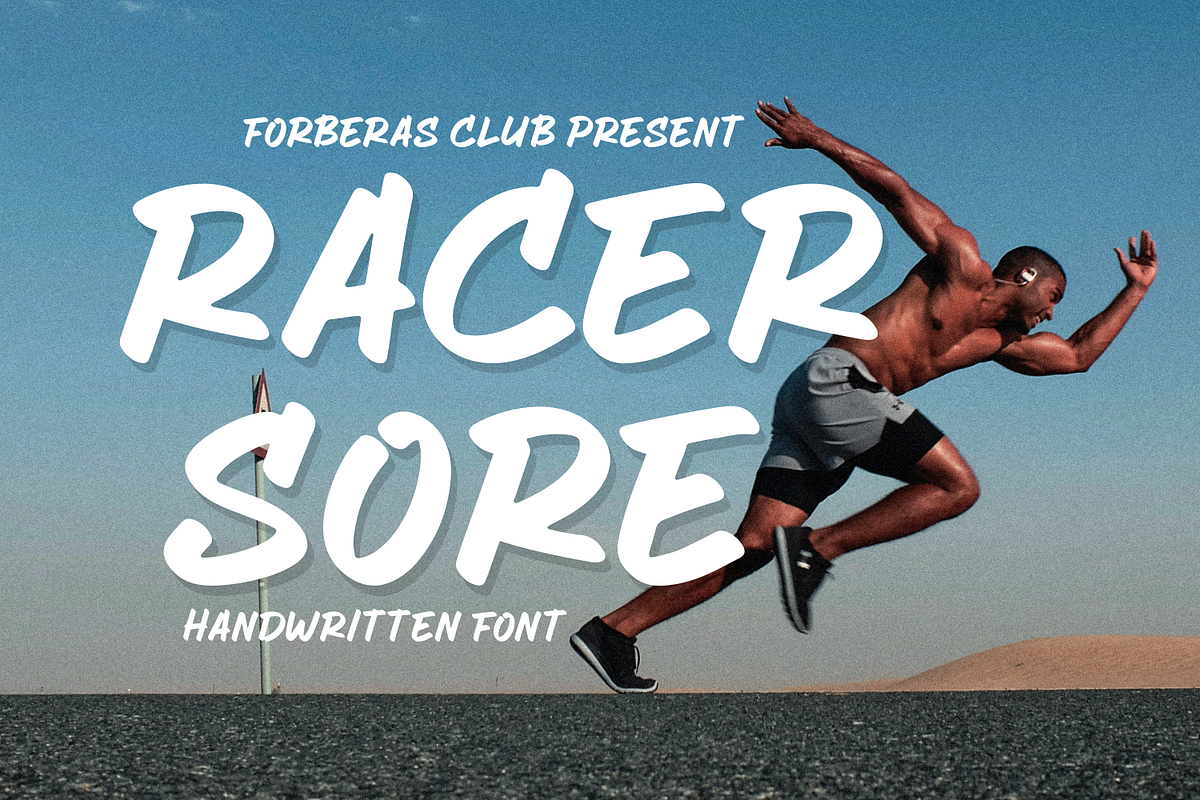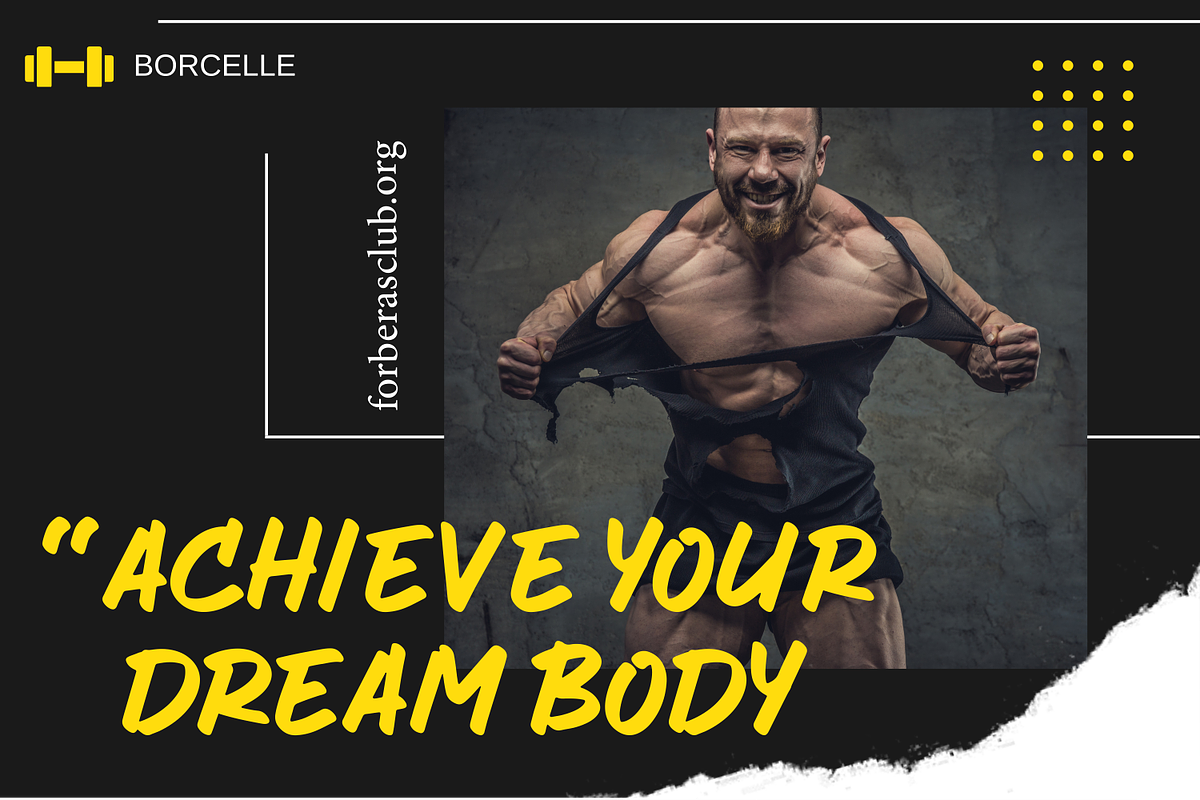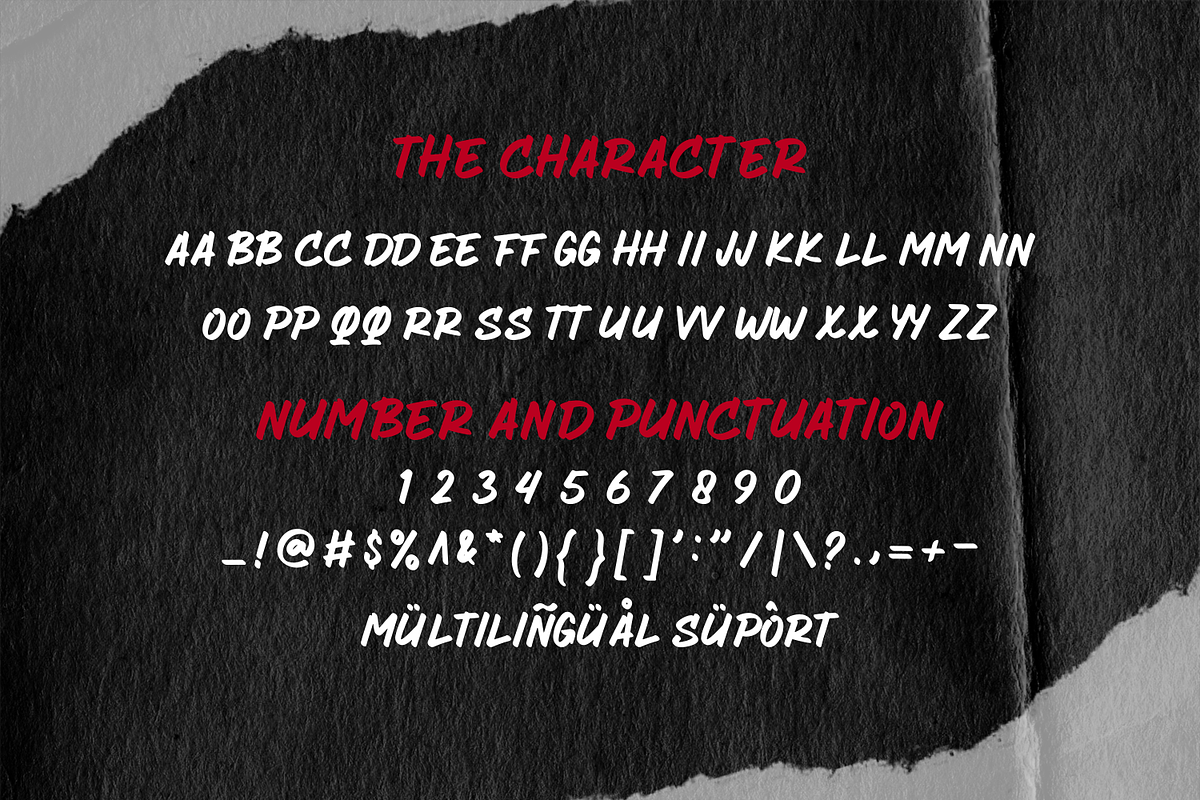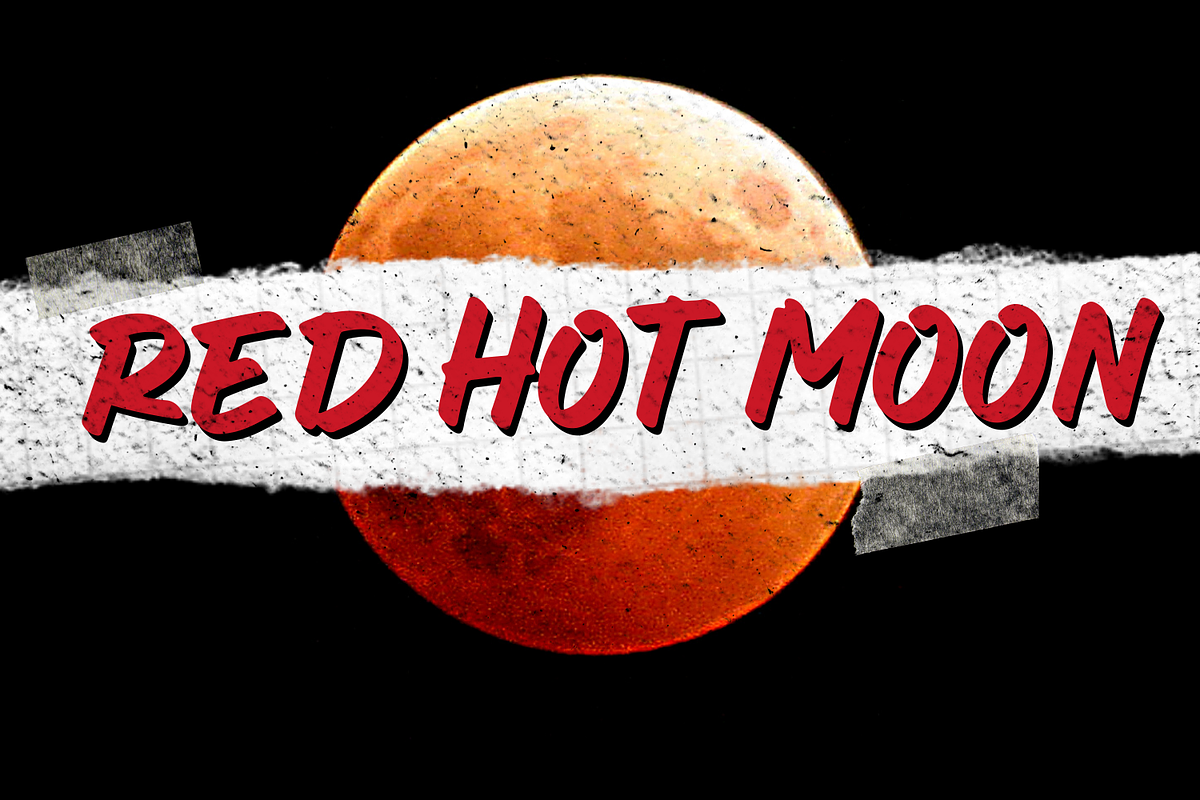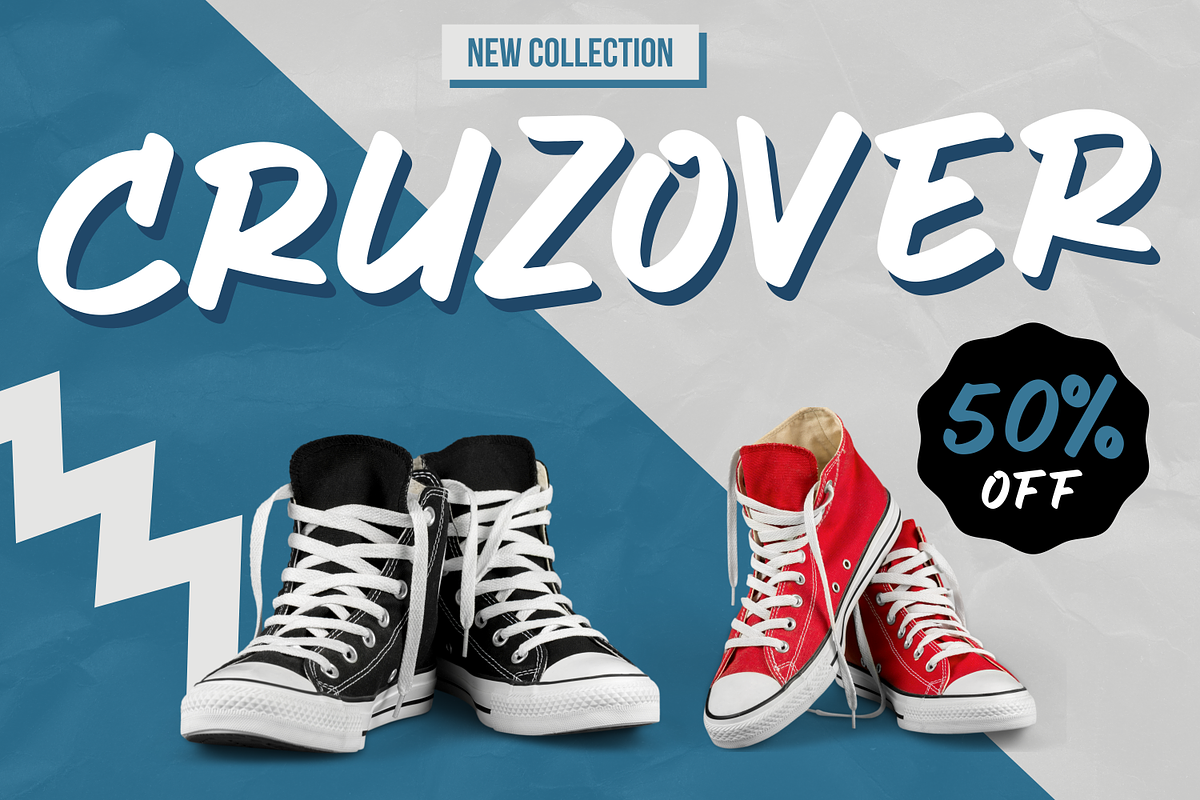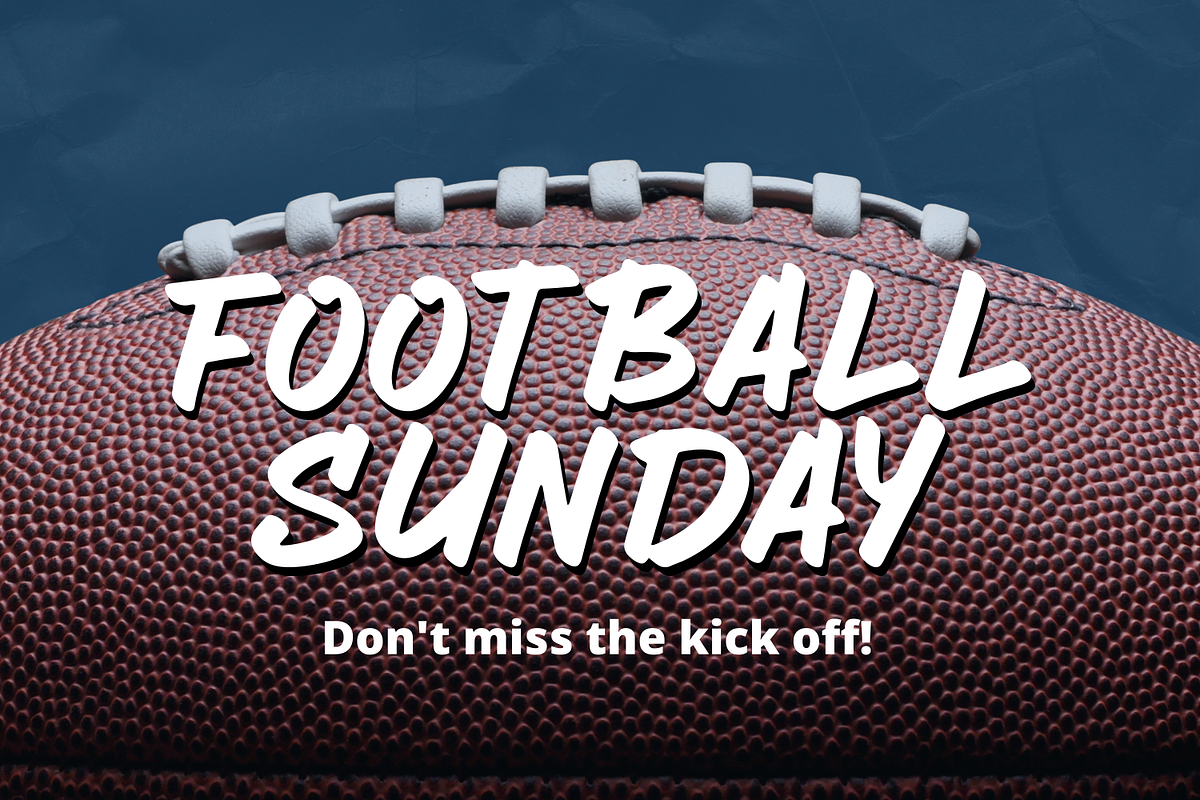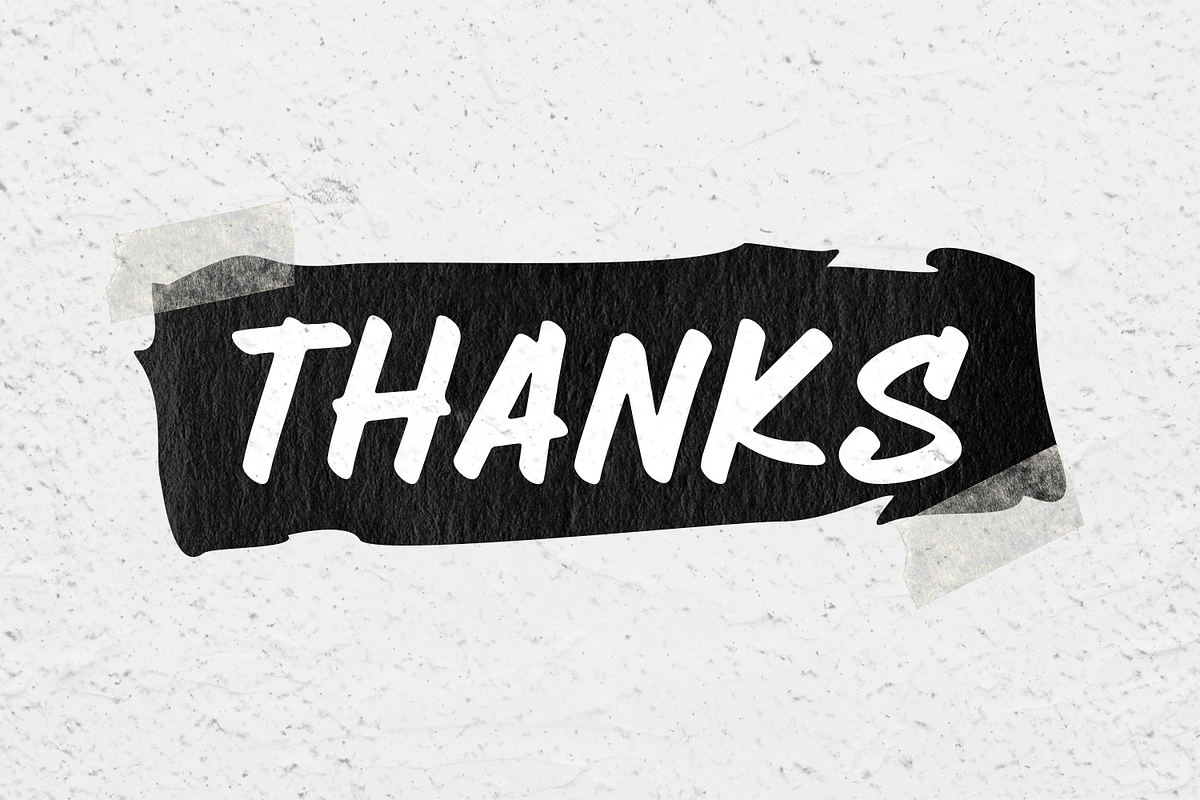
Racer Sore Faster be Bolt
Introducing Racer Sore by Forberas
Modern and beautiful handwritten script font! Great for wedding greeting cards, logos, branding materials, Invitation, business cards, quotes, posters, Cricut artwork and more!